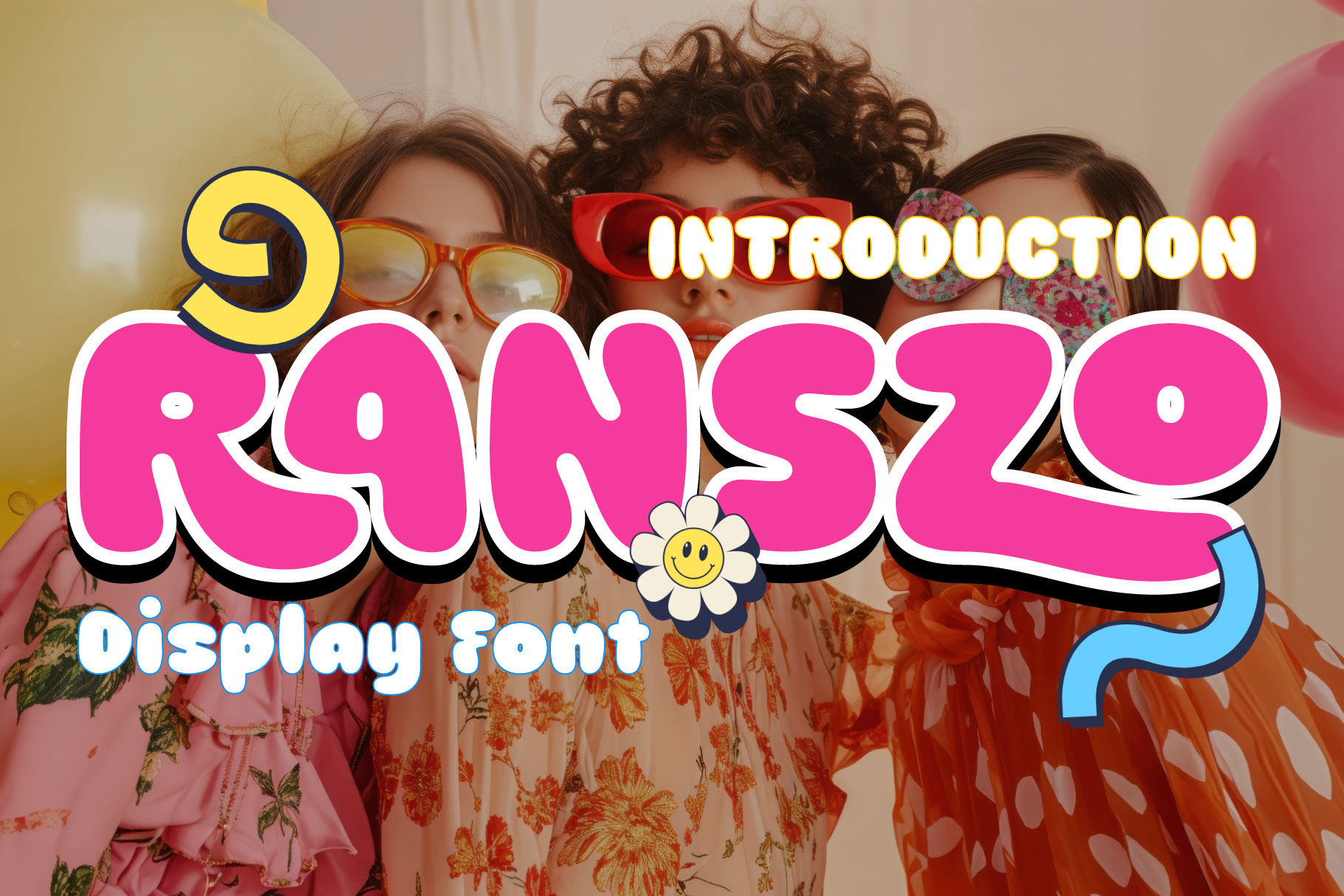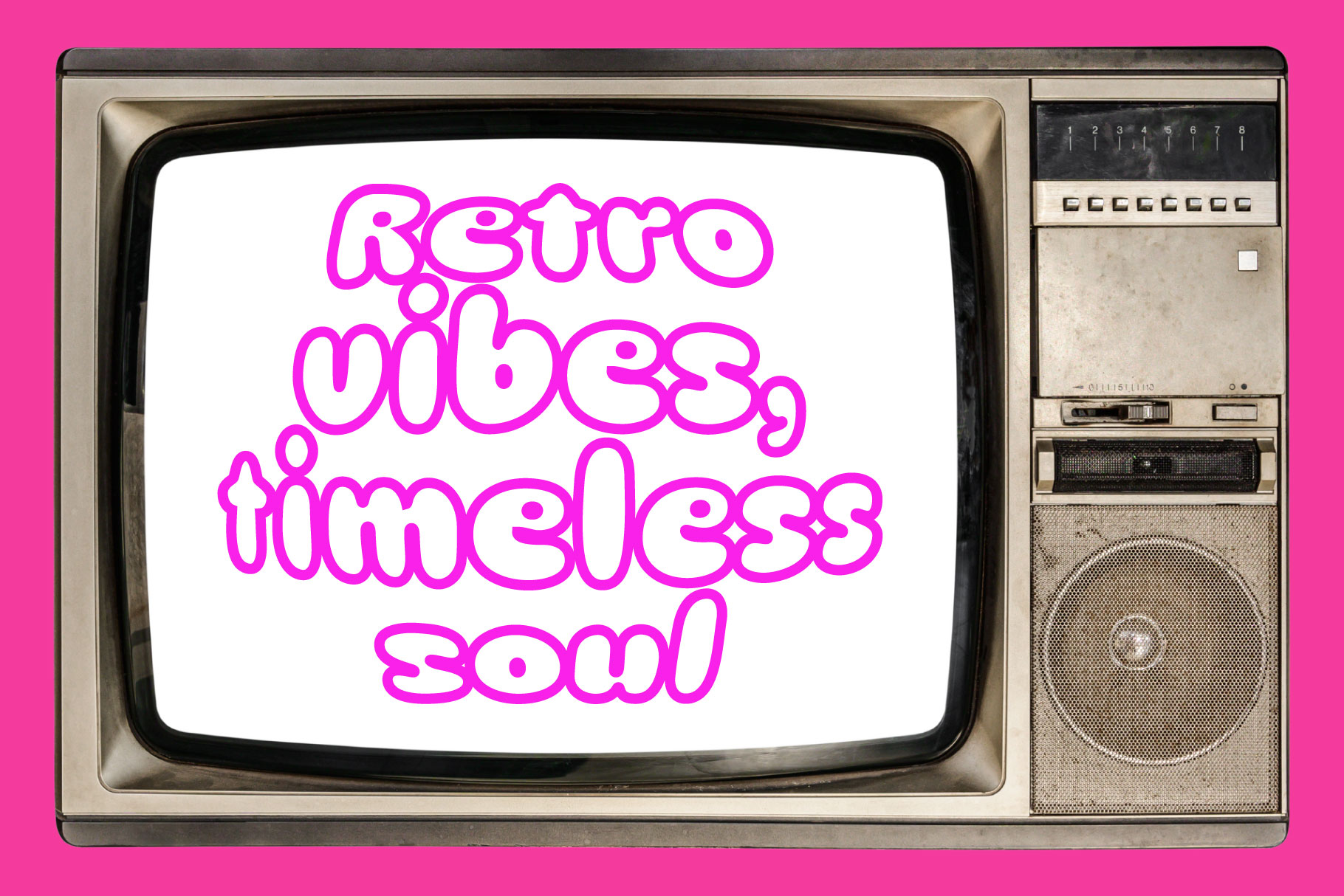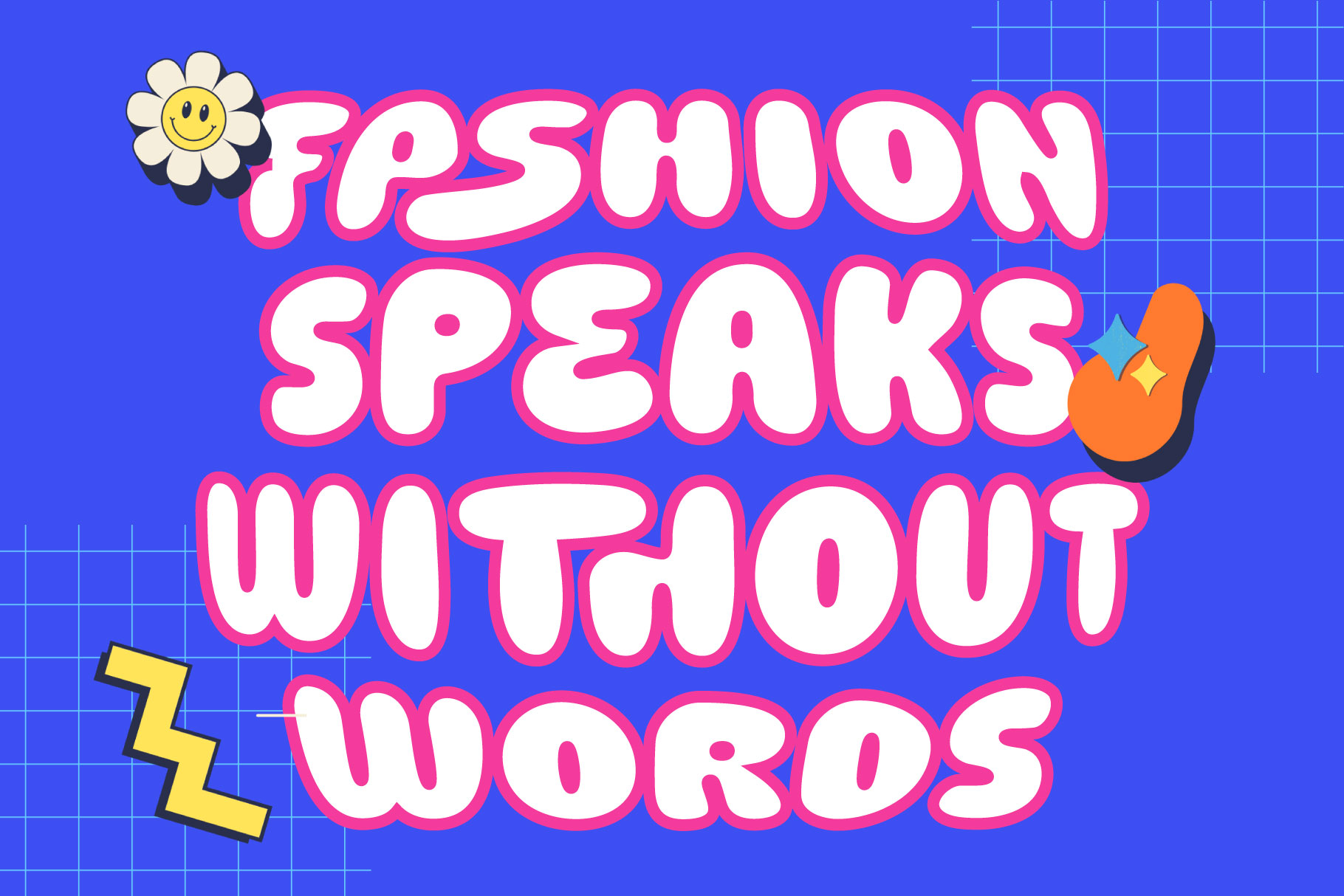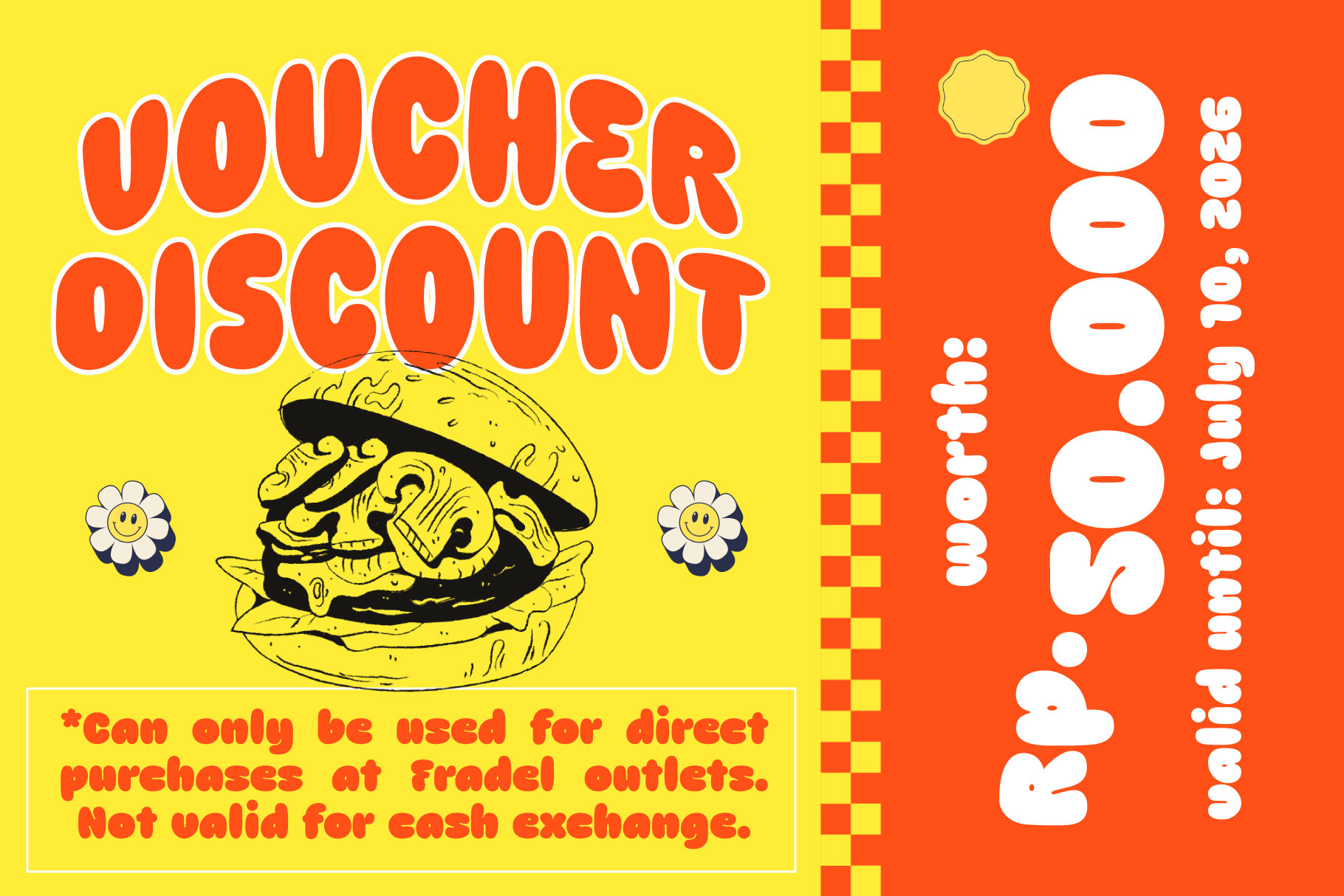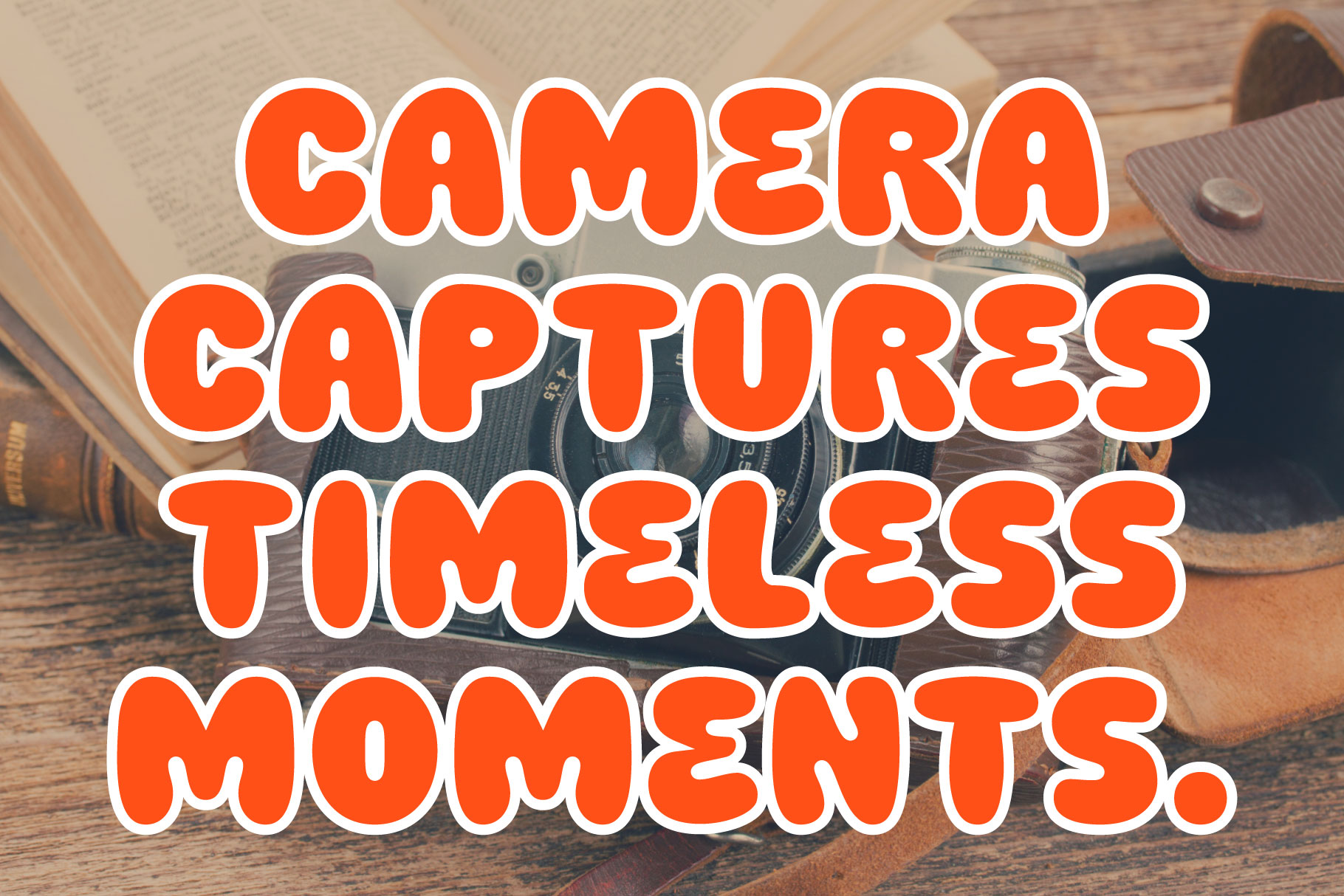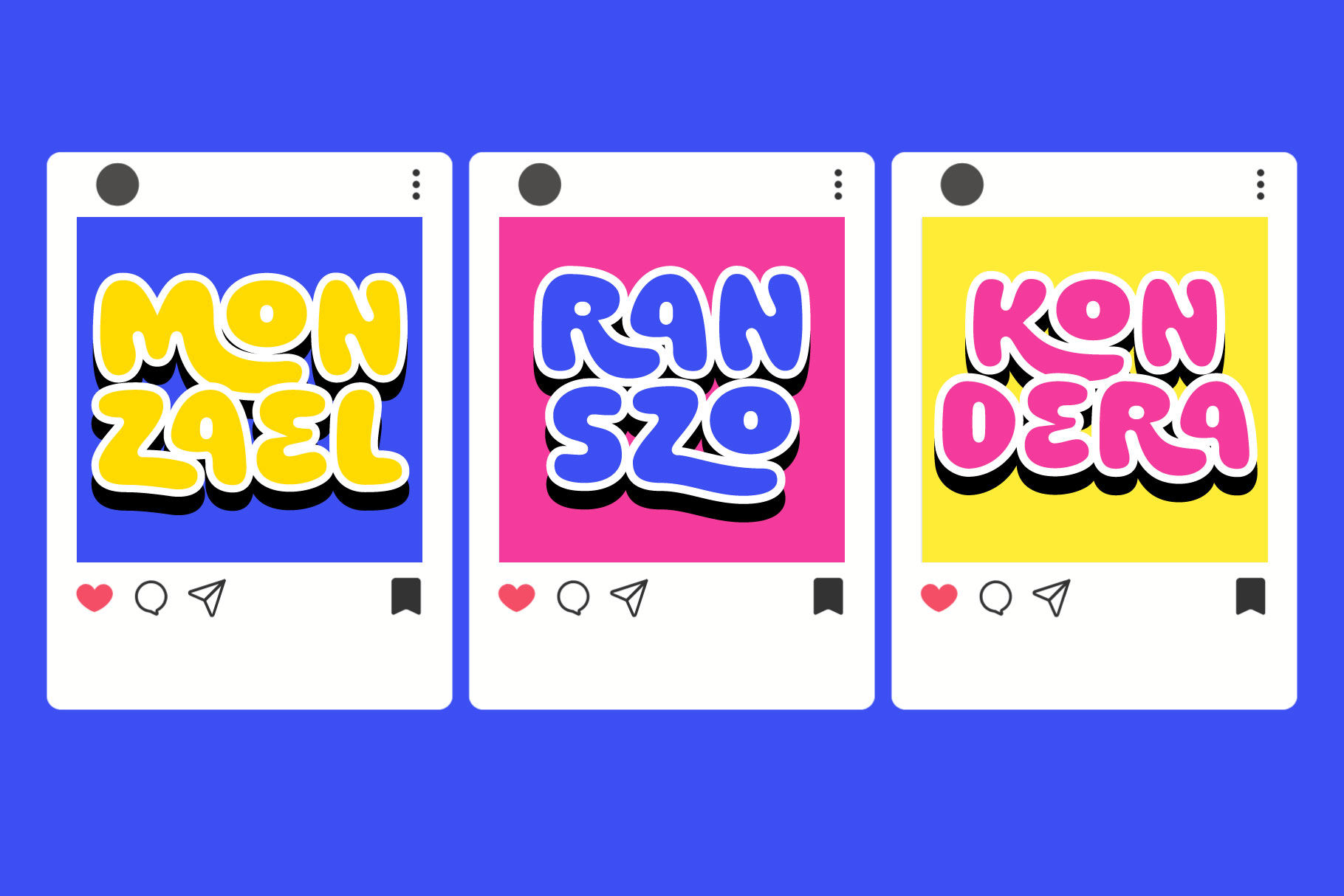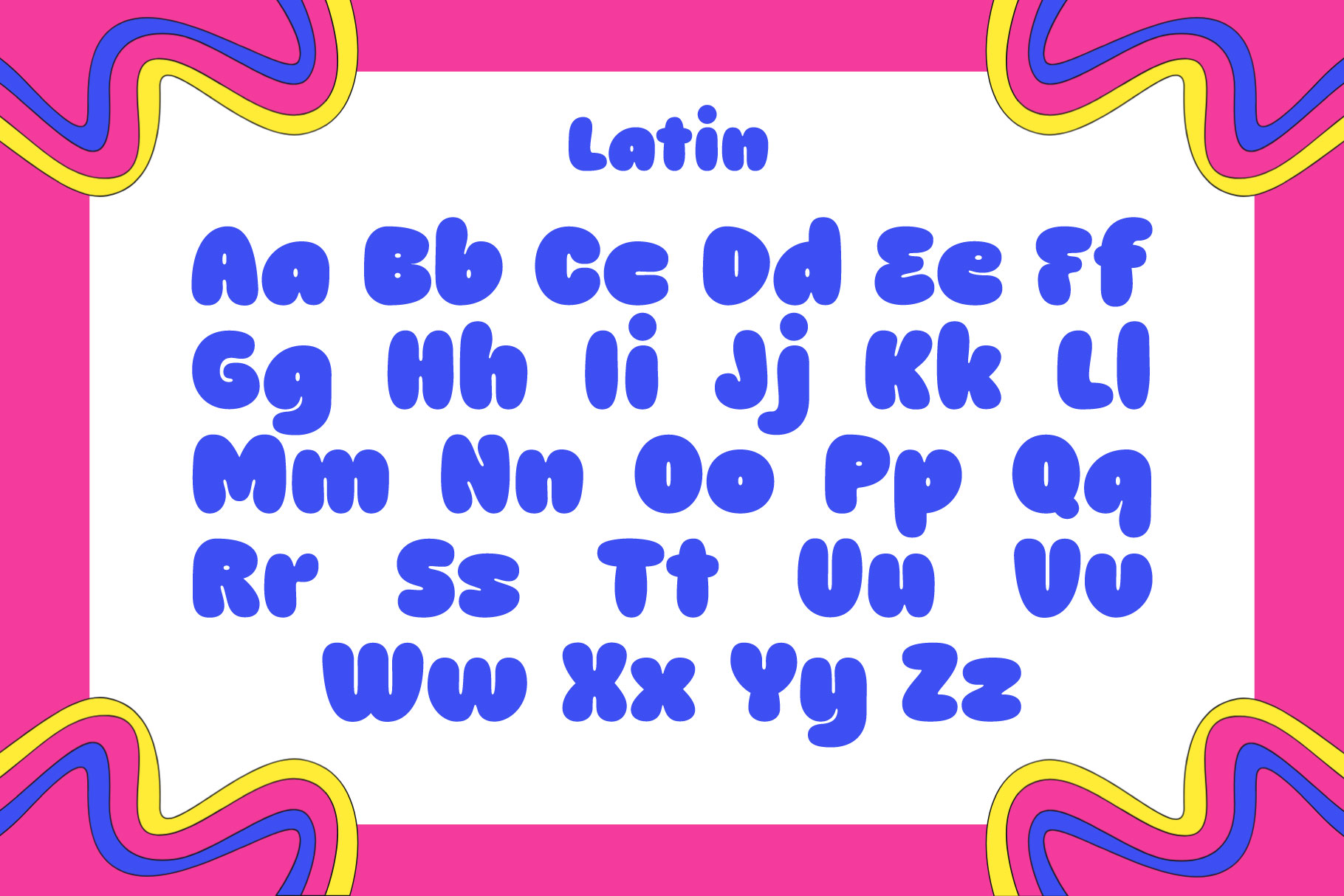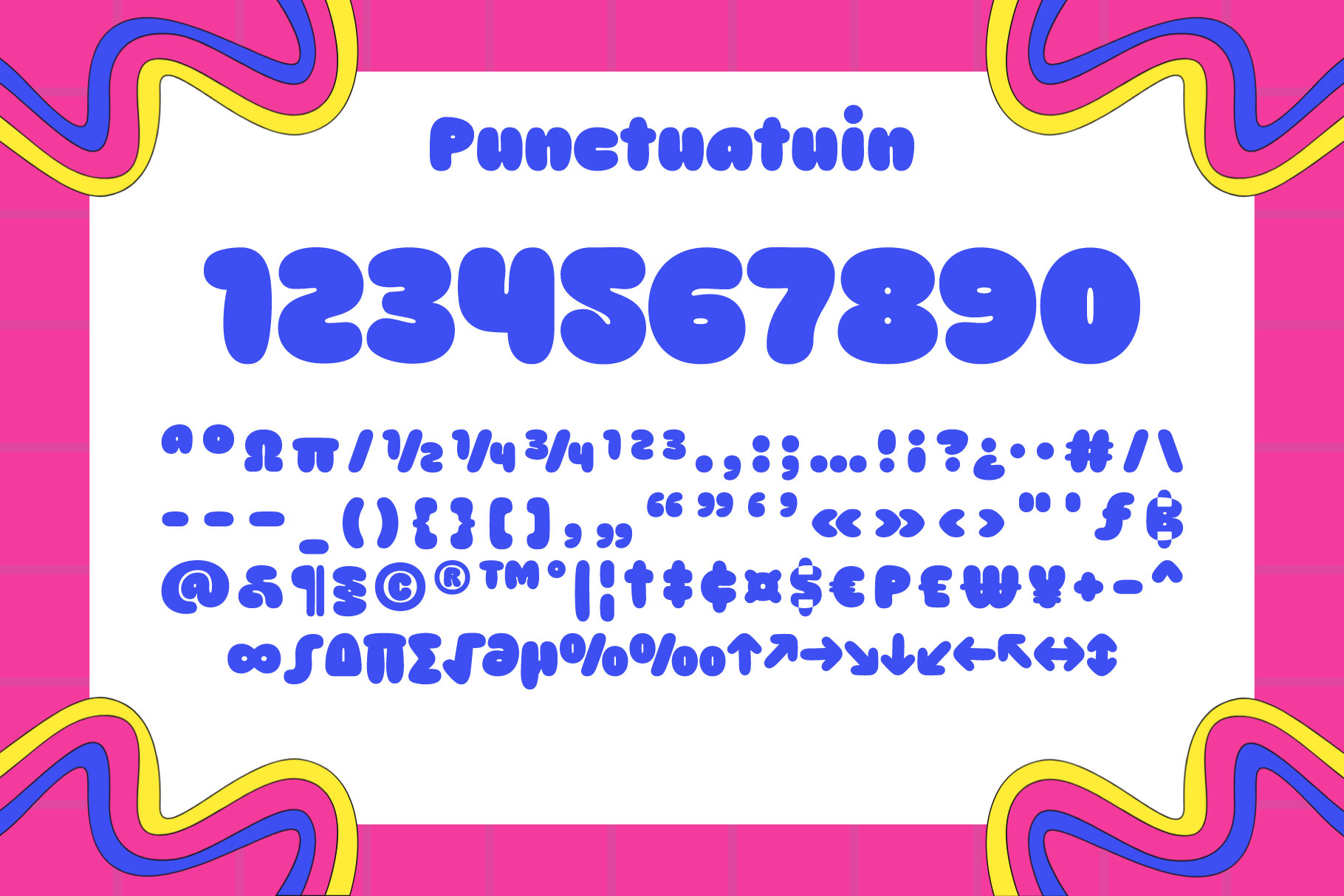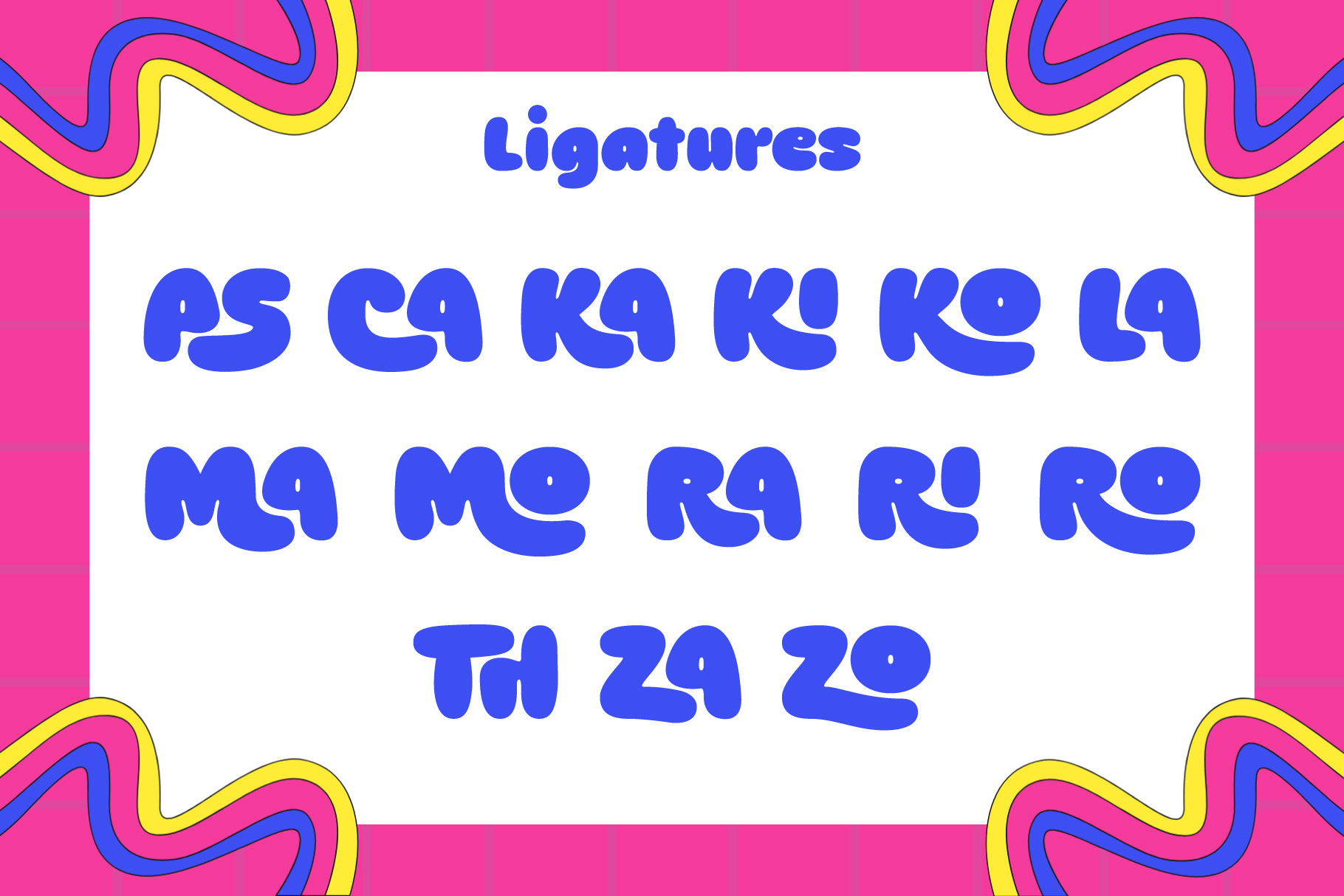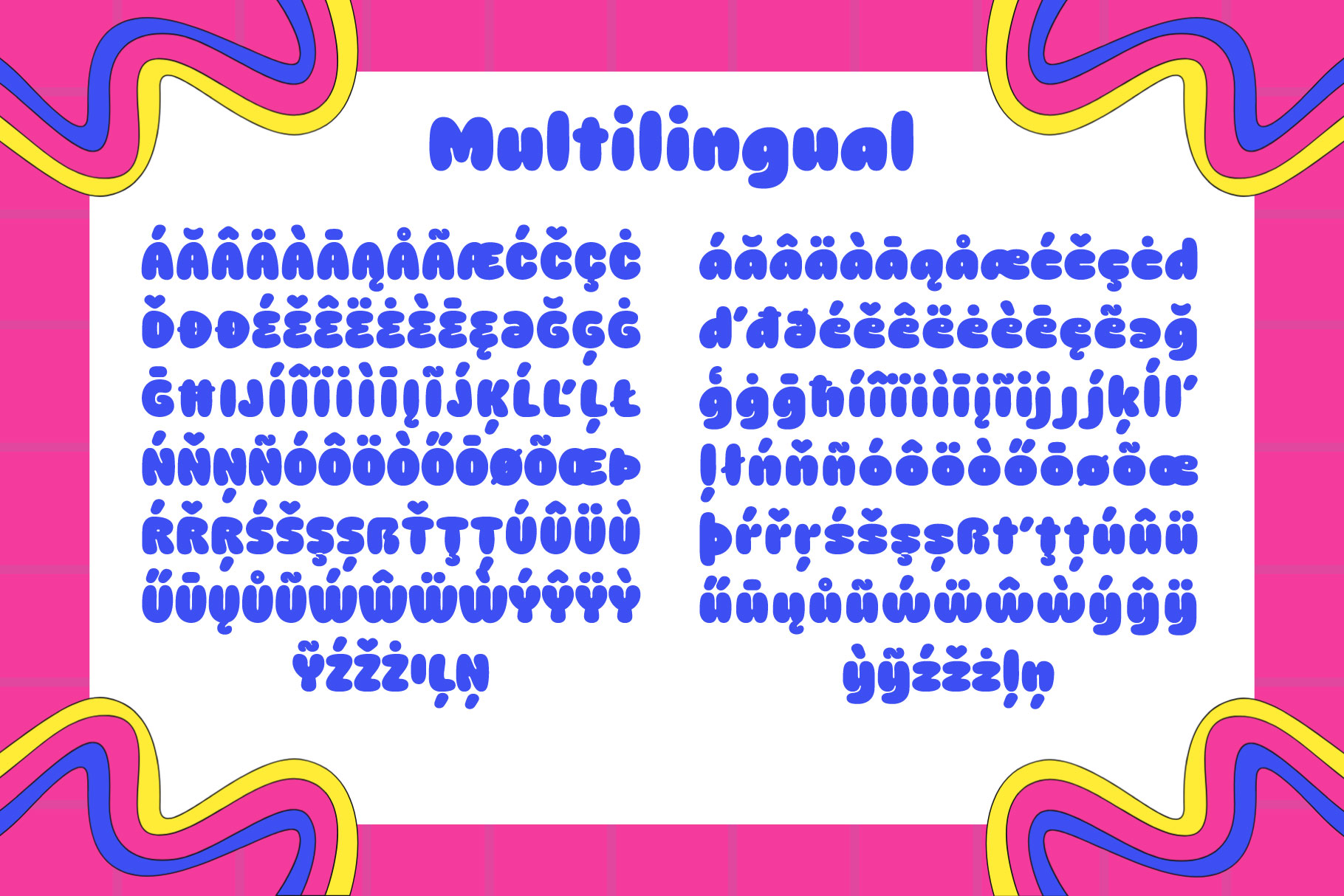
Ranszo Fun and Groovy Bubble Display Font
Ranszo is a fun and groovy bubble display font that brings a cheerful retro vibe to any design. With its bold rounded shapes and smooth curves, this typeface captures the playful energy of the 70’s pop era, making your text look bold, friendly, and full of life.
Perfect for logos, posters, packaging, branding, album covers, and social media designs, Ranszo adds a burst of personality and fun to your creative projects.
This font also includes unique ligatures that enhance the flow between letters, perfect for giving your designs a handcrafted, dynamic feel.
• Uppercase & lowercase letters (A–Z, a–z)
• Numbers & punctuation
• Creative ligatures